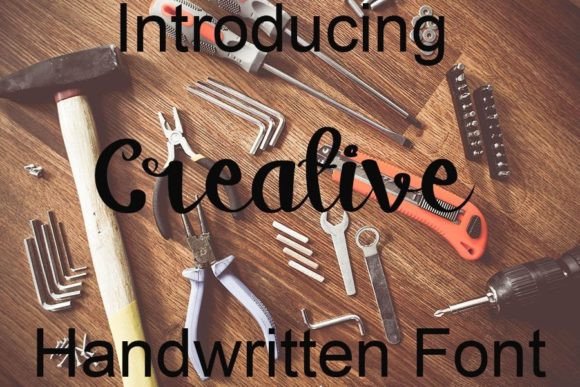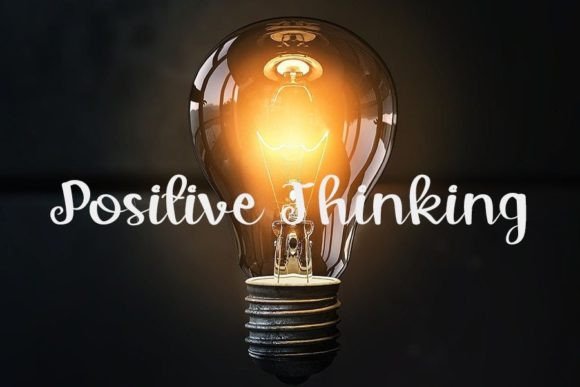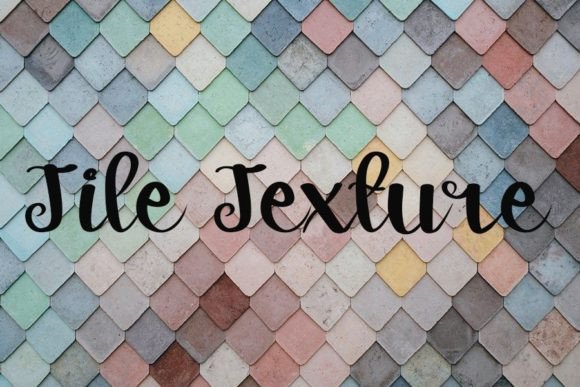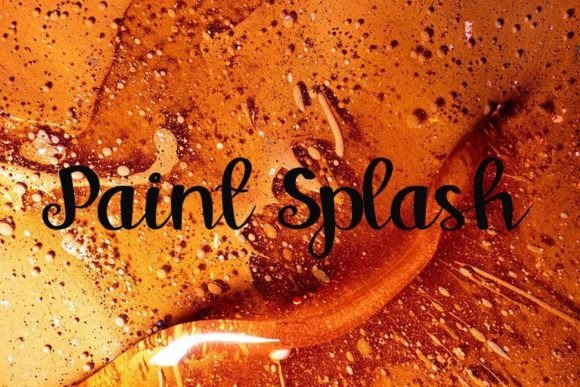
Creative Font
About Creative Font
Creative is a clean and beautiful handwritten font characterized by an elegant touch, making it an excellent choice for your favorite projects. With its distinct and timeless style, Creative is crafted to enhance the visual appeal of your creations and provide a sophisticated aesthetic.
The neat and beautiful attributes of Creative are evident in its carefully crafted letterforms. The font exudes a sense of orderliness and refinement, creating a polished appearance that is versatile and adaptable to various design applications. This makes Creative well-suited for a wide range of projects where an elegant touch is desired.
The elegant touch of Creative adds a layer of sophistication to your designs. Whether you’re working on branding projects, product packaging, invitations, or any other creative endeavor, Creative ensures that your designs radiate a distinct and classic style.
Fall in love with the distinctive charm of Creative, and let it be the font that elevates the visual impact of your projects. From logos to spectacular designs, Creative’s neat and beautiful handwritten style provides a versatile and timeless foundation for a variety of creative applications. Incorporate Creative into your design toolkit and experience how it brings a touch of elegance to your favorite projects.